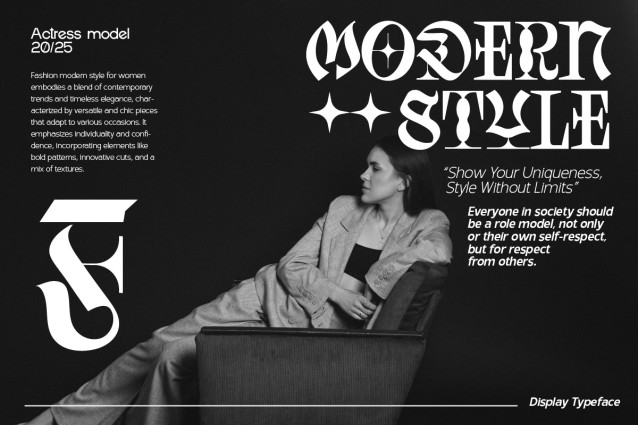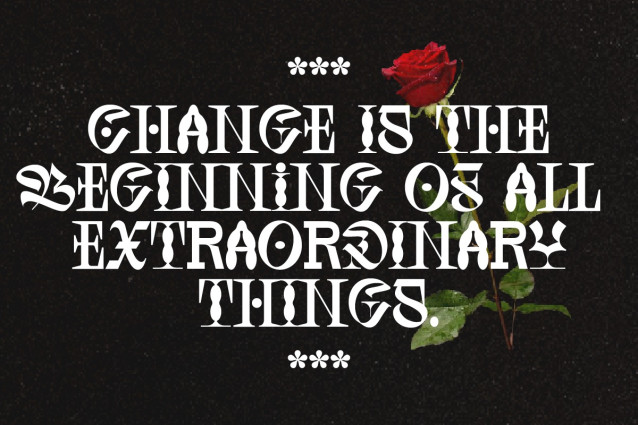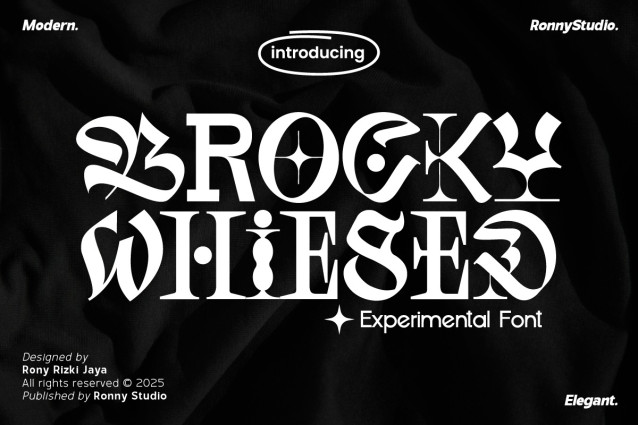
Brocky Whiesed Font
Brocky Whiesed Font a bold experimental font that breaks traditional design boundaries with its unique, edgy, and eye-catching style. Designed for projects that demand creativity and a touch of rebellion, Brocky Whiesed is perfect for logos, posters, album covers, merchandise, and more. Its striking letterforms and dynamic shapes give your designs an artistic and avant-garde edge.